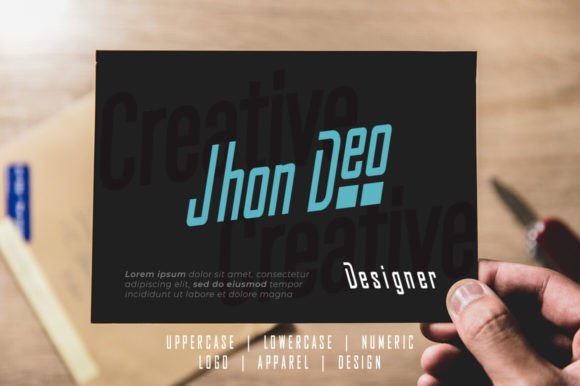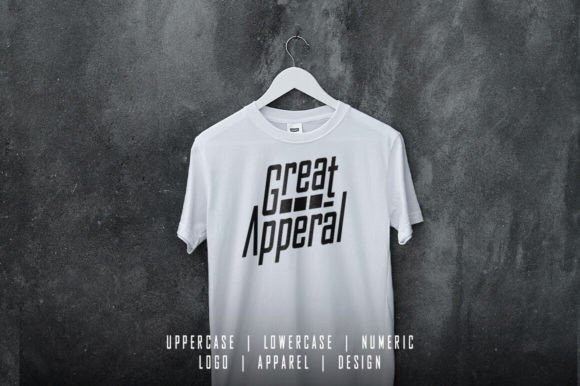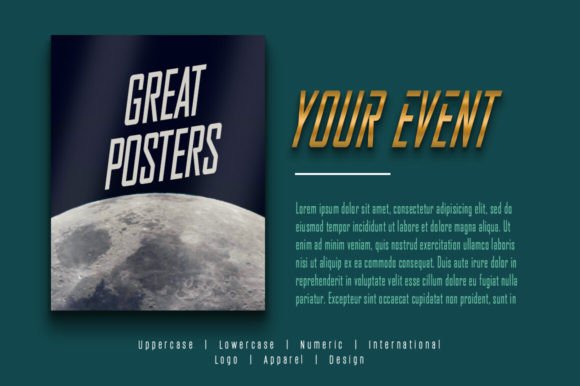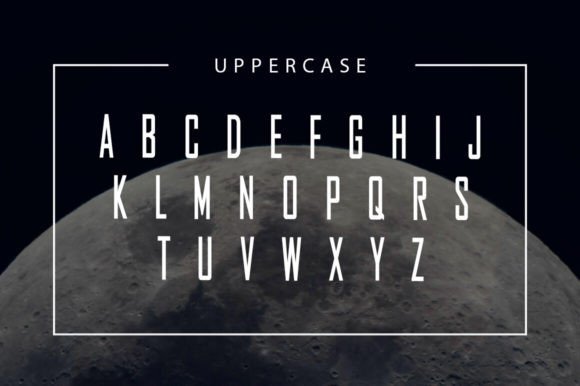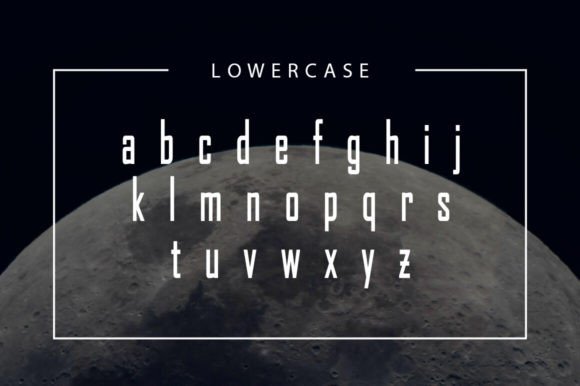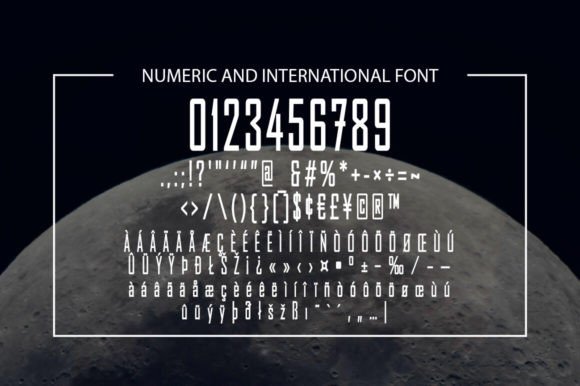
Unlock Endless Design Possibilities with Apollo Force Font
Are you on the hunt for a font that can elevate your design projects to new heights? Look no further than the captivating Apollo Force Family Font. This versatile and stylish font is perfect for a wide range of applications, from creating eye-catching concert posters and striking logos to designing trendy clothing and more. With its unique blend of uppercase and lowercase letters, as well as numerical characters, Apollo Force Font is sure to breathe new life into your typography repertoire.
The Ultimate Design Companion
One of the standout features of Apollo Force Font is its incredible versatility. Whether you’re working on a graphic design project, crafting a logo, or creating something entirely new, this font is up to the task. Its alternative charm and stylish aesthetic make it an irresistible choice for designers and crafters looking to add a touch of personality to their work.
So, what can you create with Apollo Force Font? The possibilities are truly endless. Here are just a few ideas to get you started:
- Concert Posters: Create eye-catching posters for your favorite bands or musicians, complete with bold typography and striking graphics.
- Logos: Design memorable and stylish logos for businesses, events, or personal projects, using Apollo Force Font to add a touch of sophistication and flair.
- Clothing Designs: Add a touch of personality to your clothing designs, from t-shirts and hoodies to hats and tote bags.
- Branding Materials: Use Apollo Force Font to create cohesive branding materials, including business cards, brochures, and more.
Why Choose Apollo Force Font?
So, what sets Apollo Force Font apart from other fonts on the market? Here are just a few reasons why designers and crafters are falling in love with this incredible font:
- Unique Style: Apollo Force Font boasts a truly unique and stylish aesthetic, perfect for designers looking to add a touch of personality to their work.
- Versatility: This font is suitable for a wide range of applications, from graphic design and logos to clothing and more.
Apollo Force Font is a game-changer for designers and crafters looking to elevate their typography skills. With its unique style, versatility, and compatibility, this font is perfect for a wide range of applications. Whether you’re creating concert posters, logos, clothing designs, or more, Apollo Force Font is the perfect choice. So why wait? Unlock endless design possibilities with Apollo Force Font today!